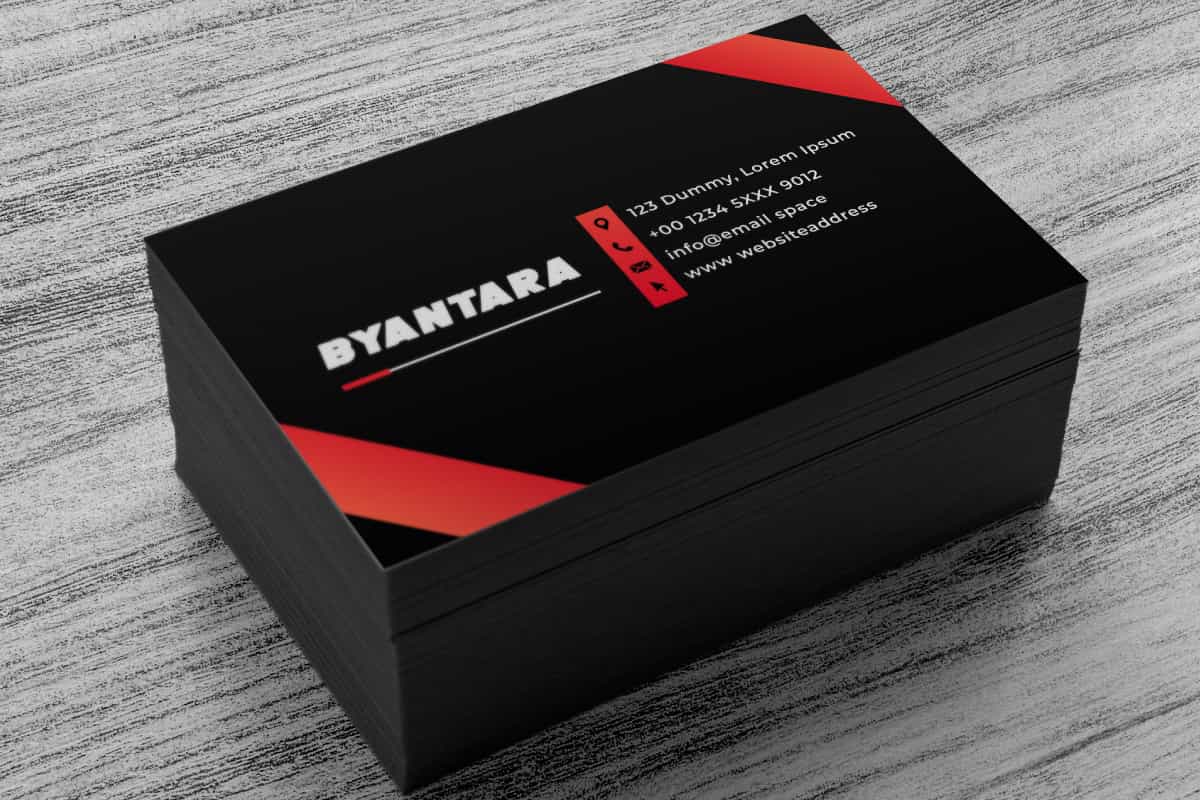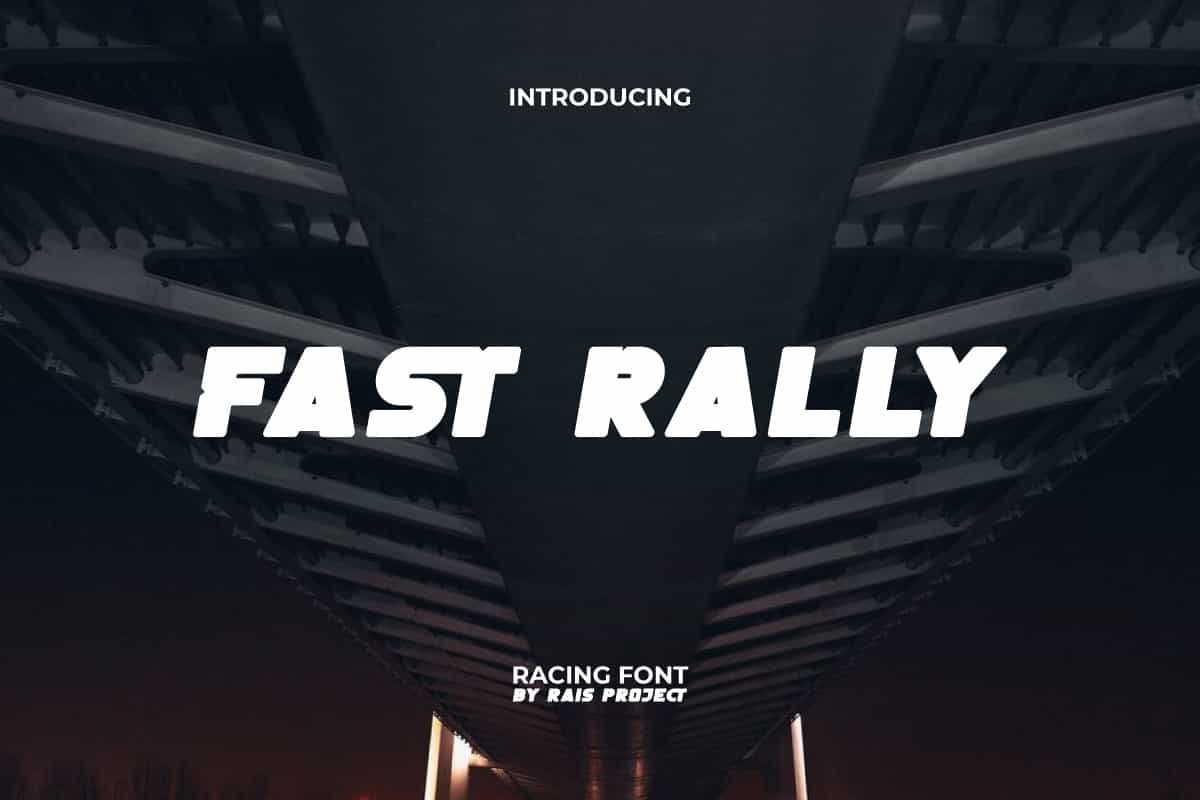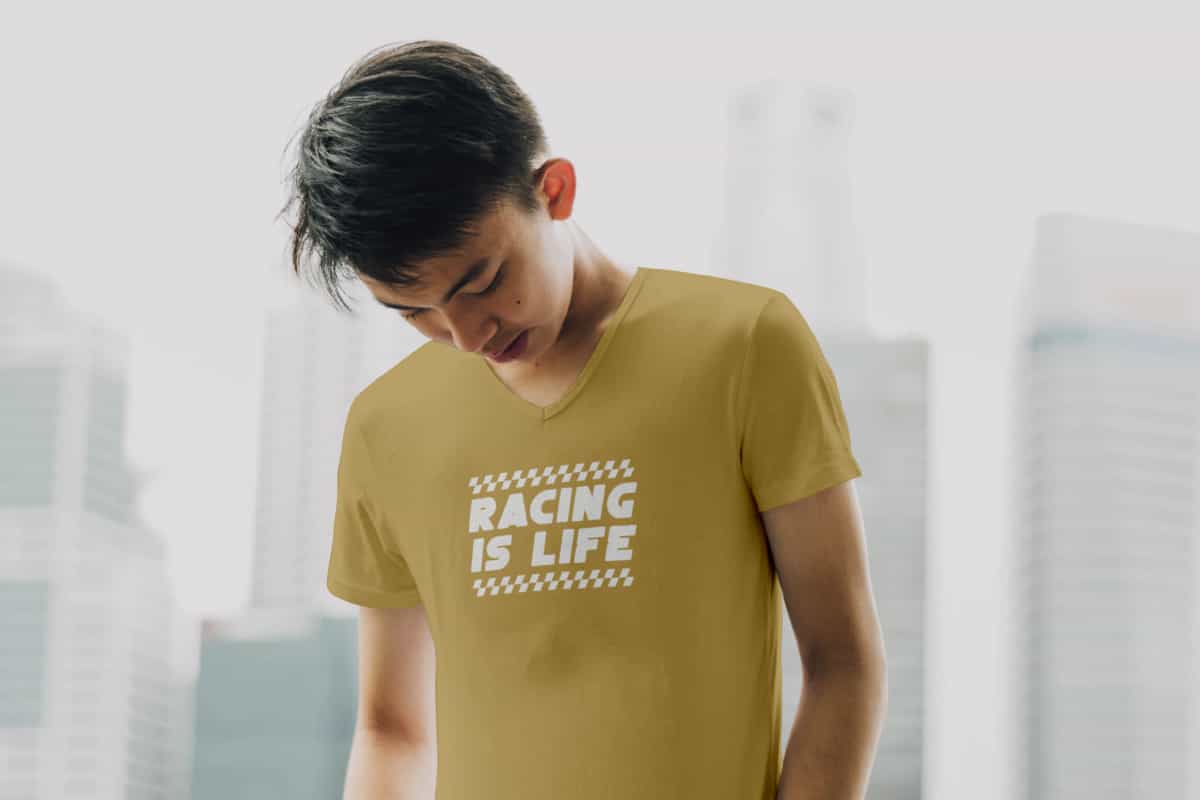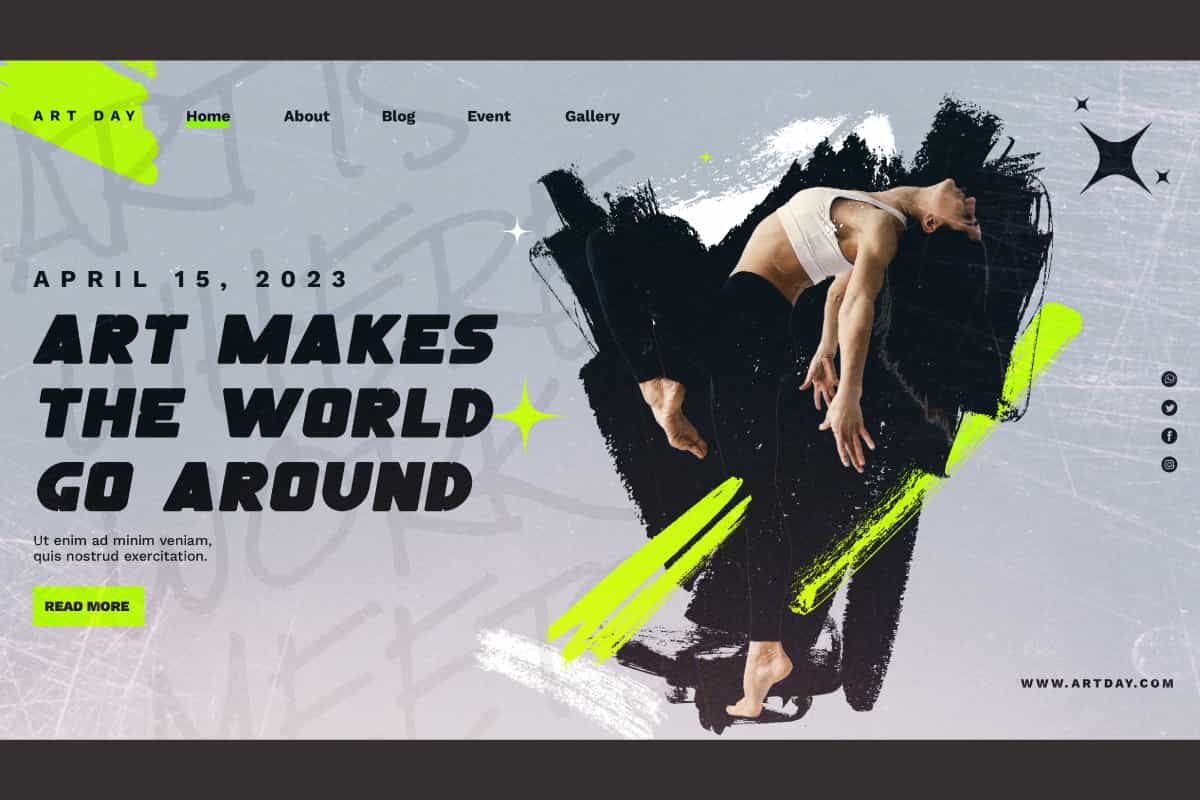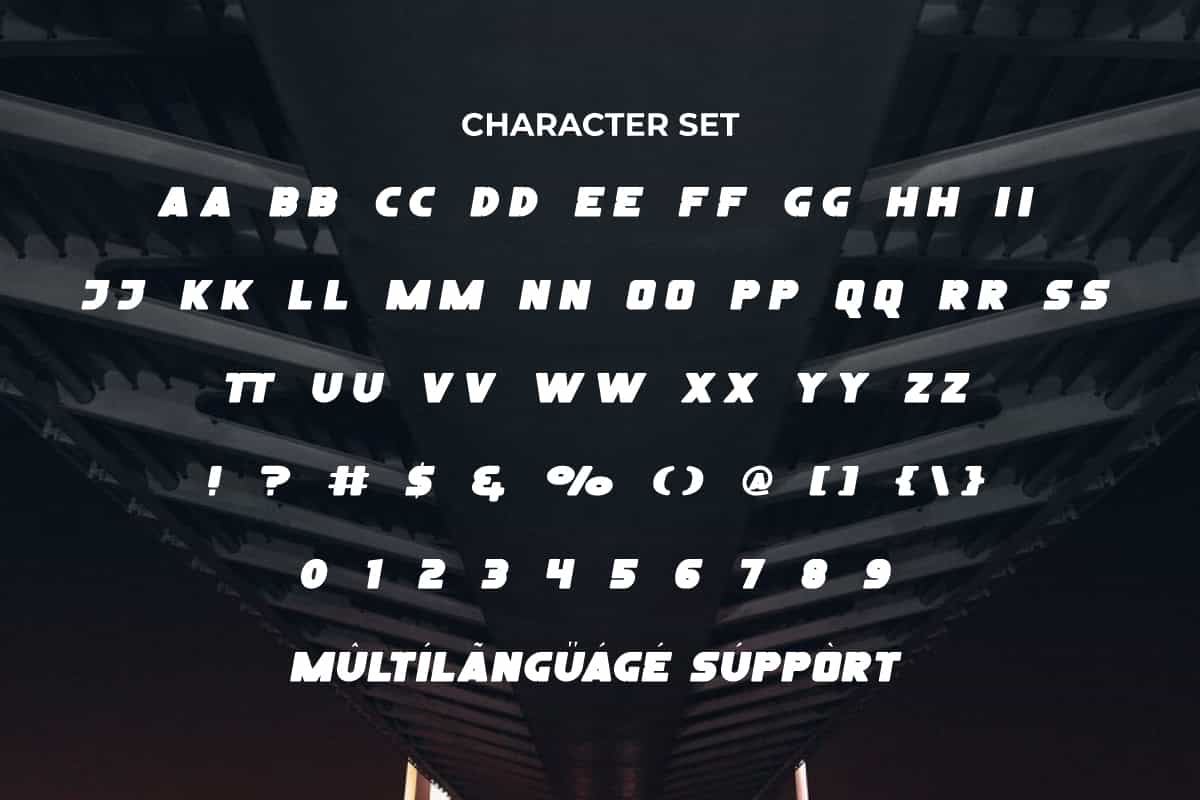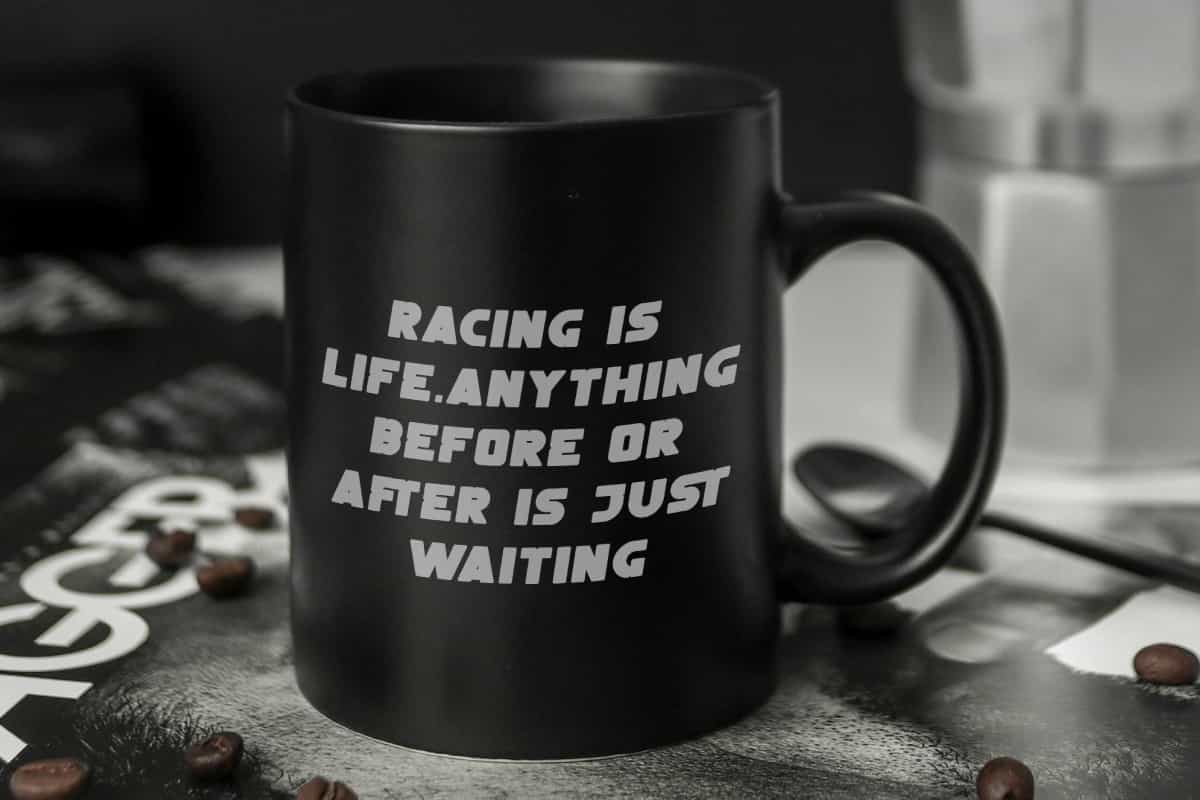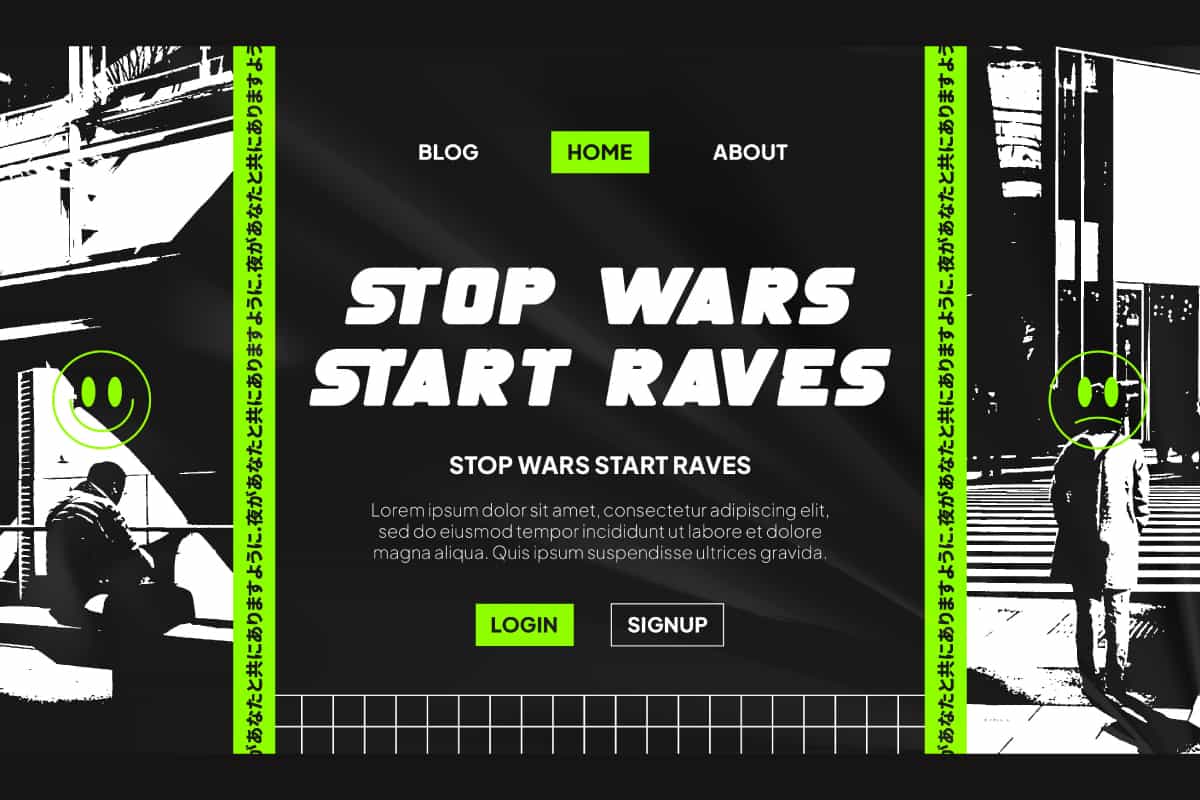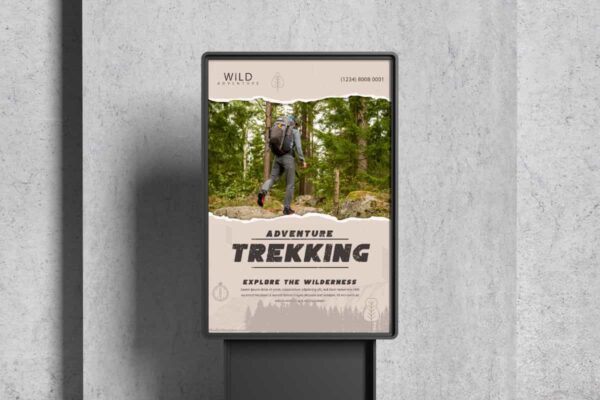
Fast Rally Display Font
Fast Rally Font is a speedy strong racing display font. Use this font right now to make your design looks impressive!
Fast Rally Font is a bold speedy strong racing by RaisProject. This display font has bold characters but can still be paired with other types of fonts without reducing its charm. It will be perfect for any designs, such as stationery, quotes, poster, advertisement, marketing material, website page, and more! You can see the demo font below, input any word you want so you can see what it looks like:
Fast Rally Display Font includes a full set of ALL CAPS for Uppercase and Lowercase Letters, Numerals, and large range of Punctuation. This bold font will be suitable for various industries, such as automotive, sports, fashion, game, barber shop, cafe, event or festival, photography, printing, publishing, etc. What you get: